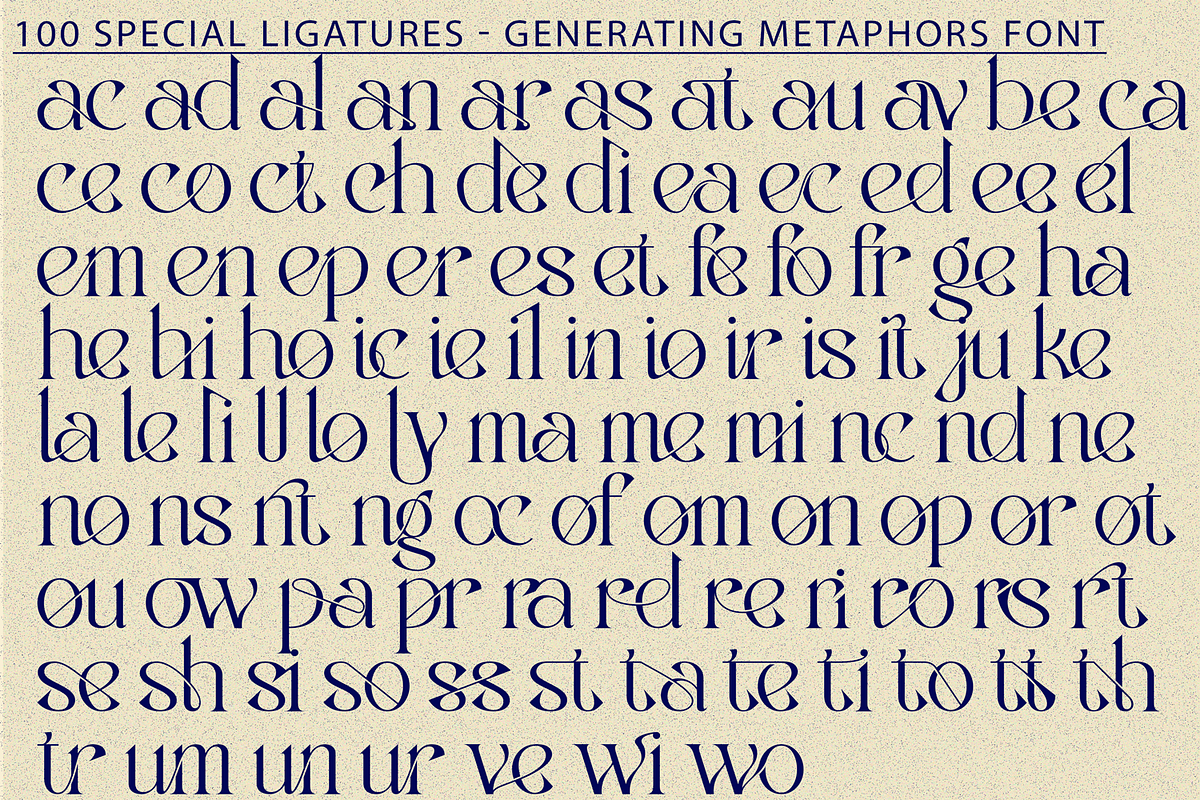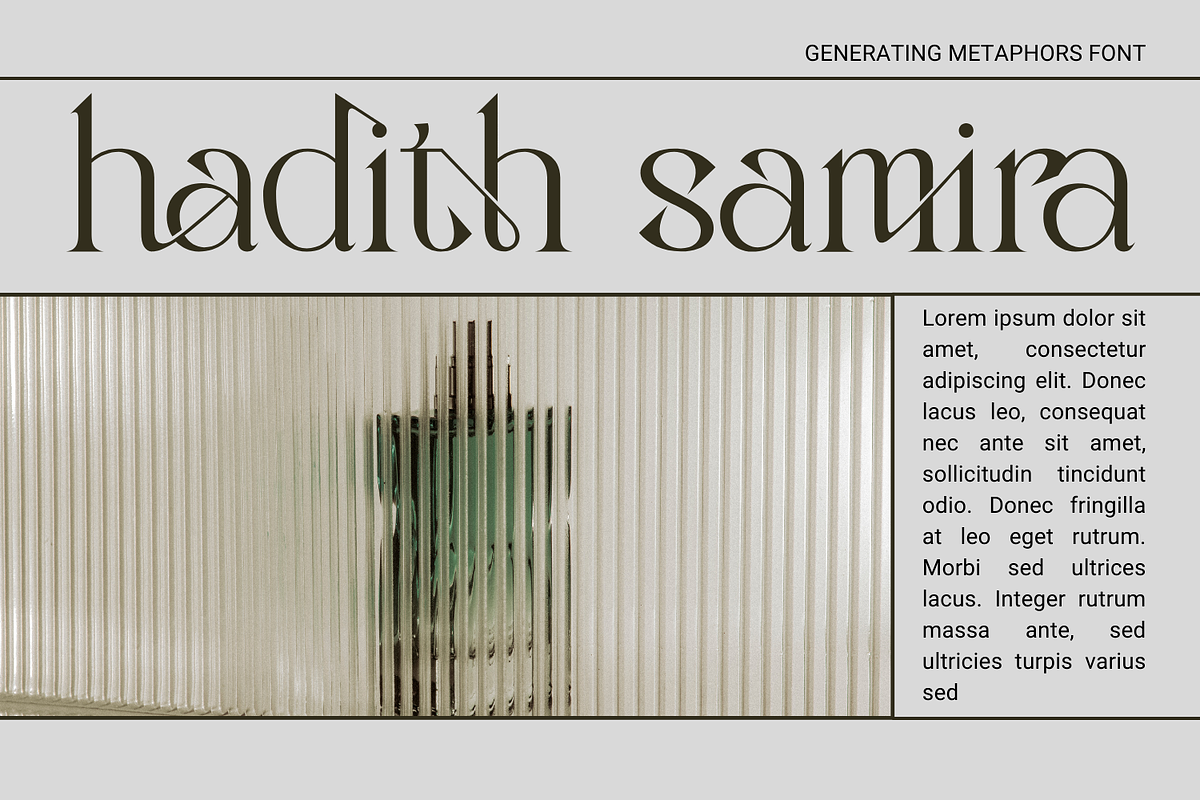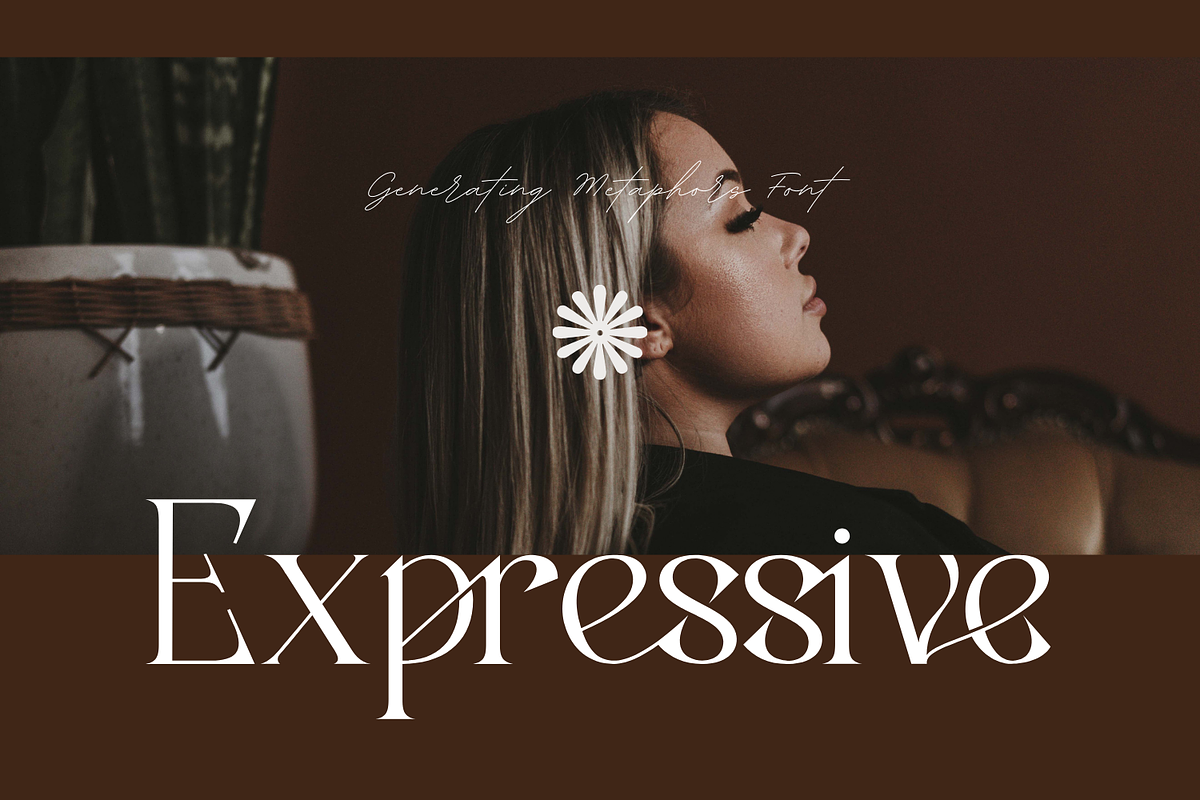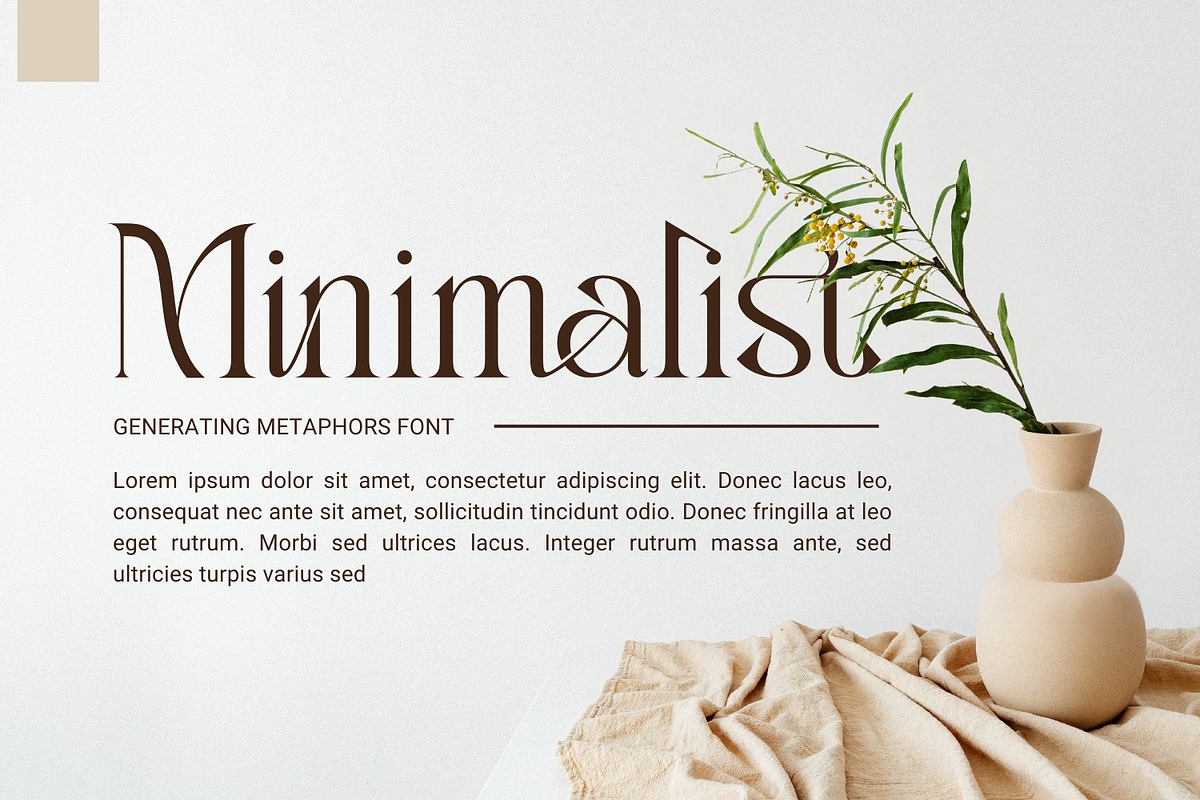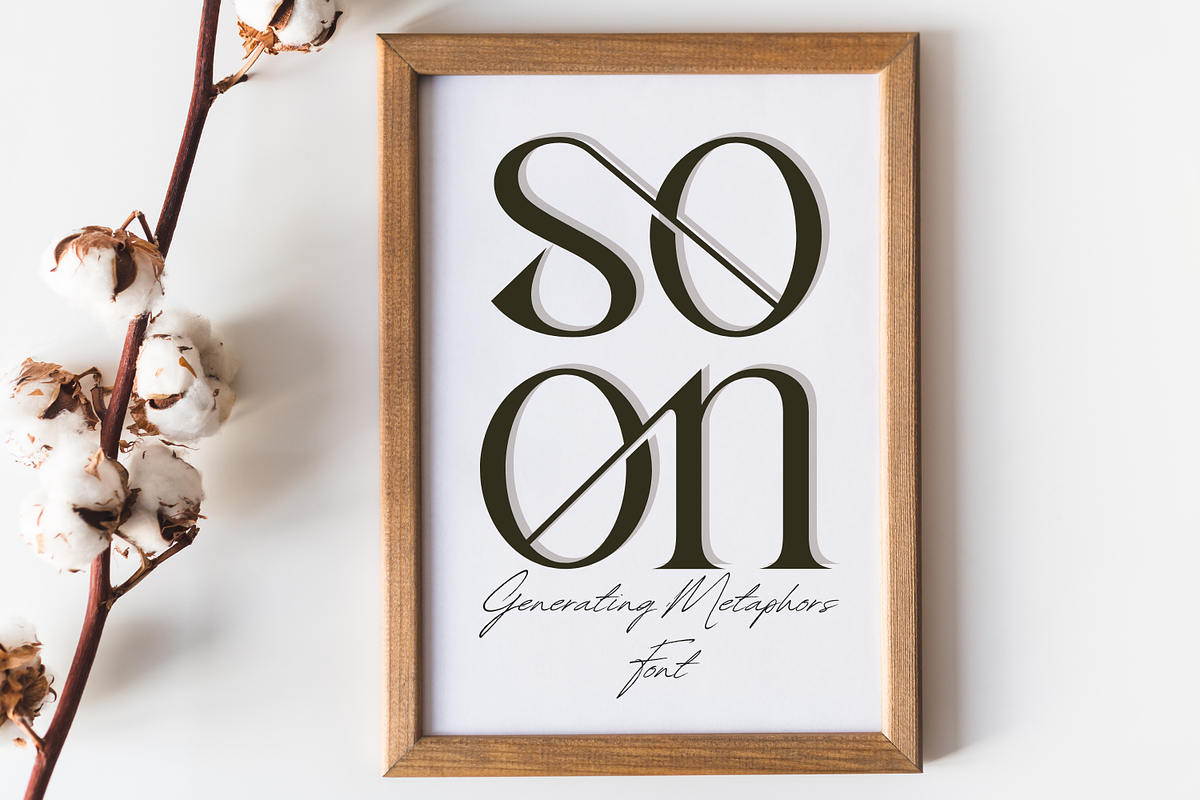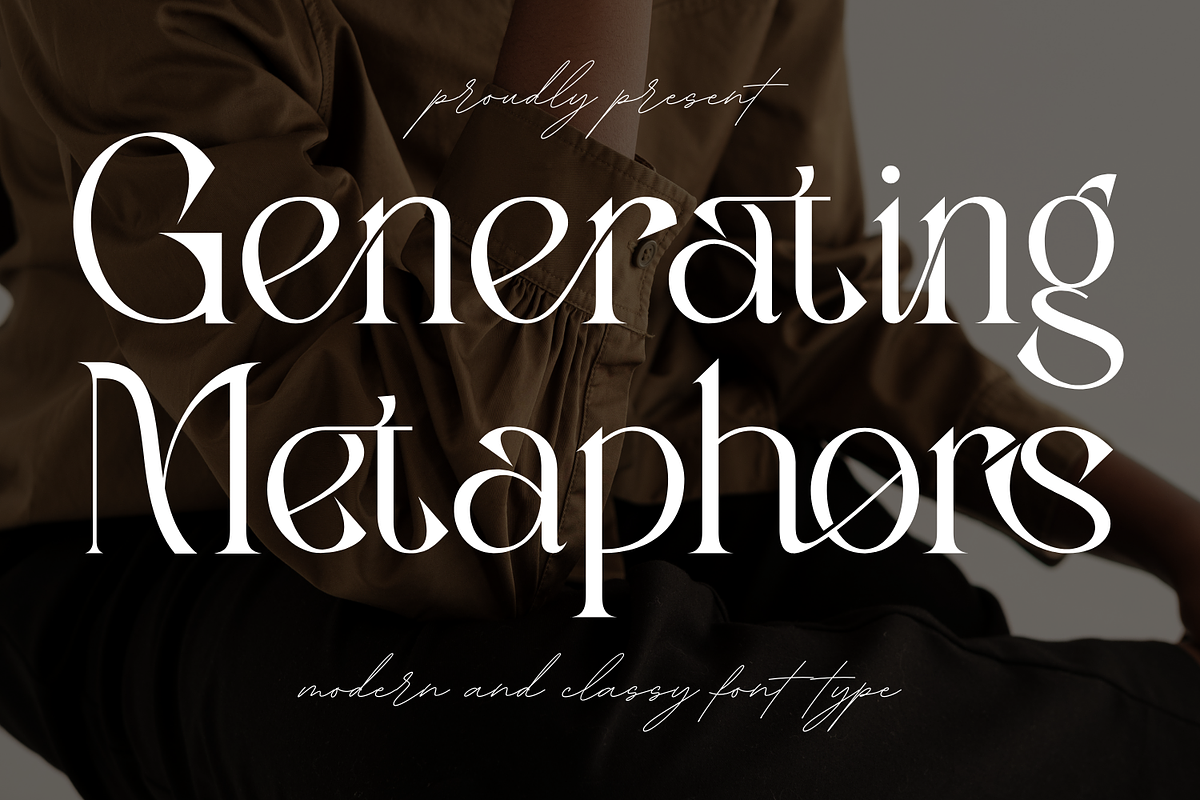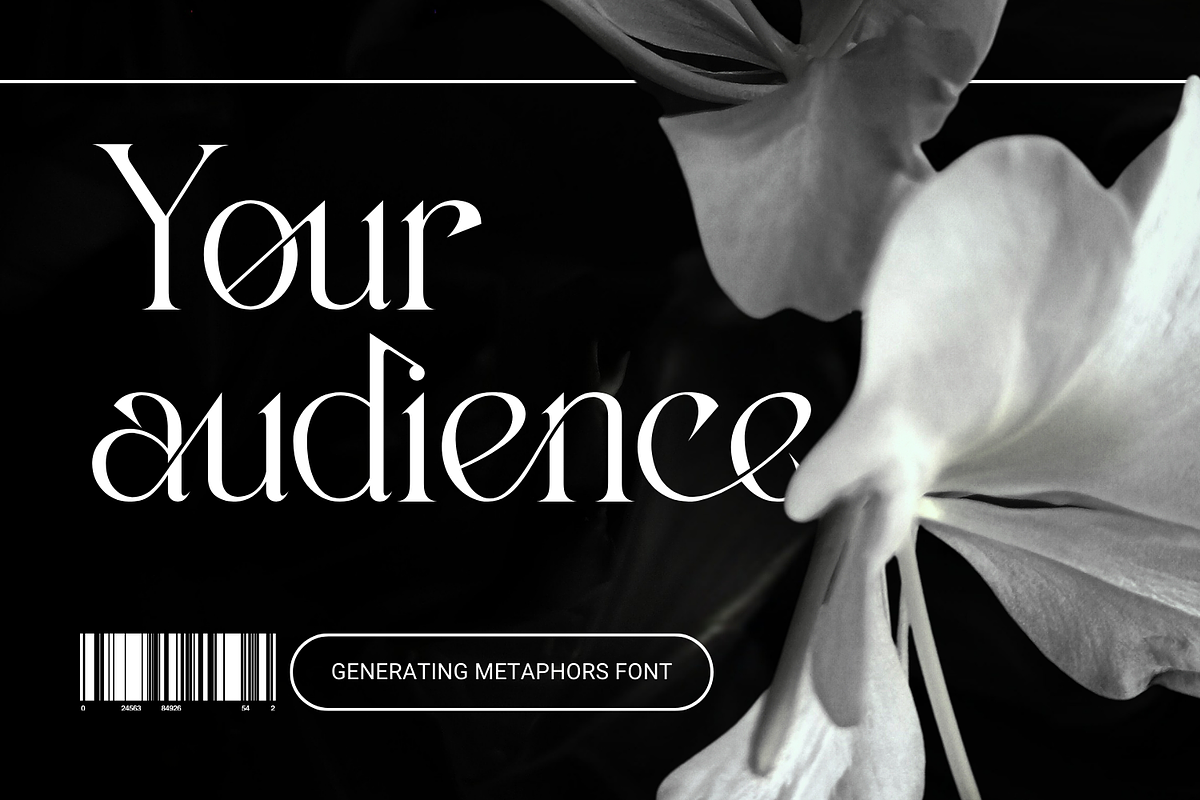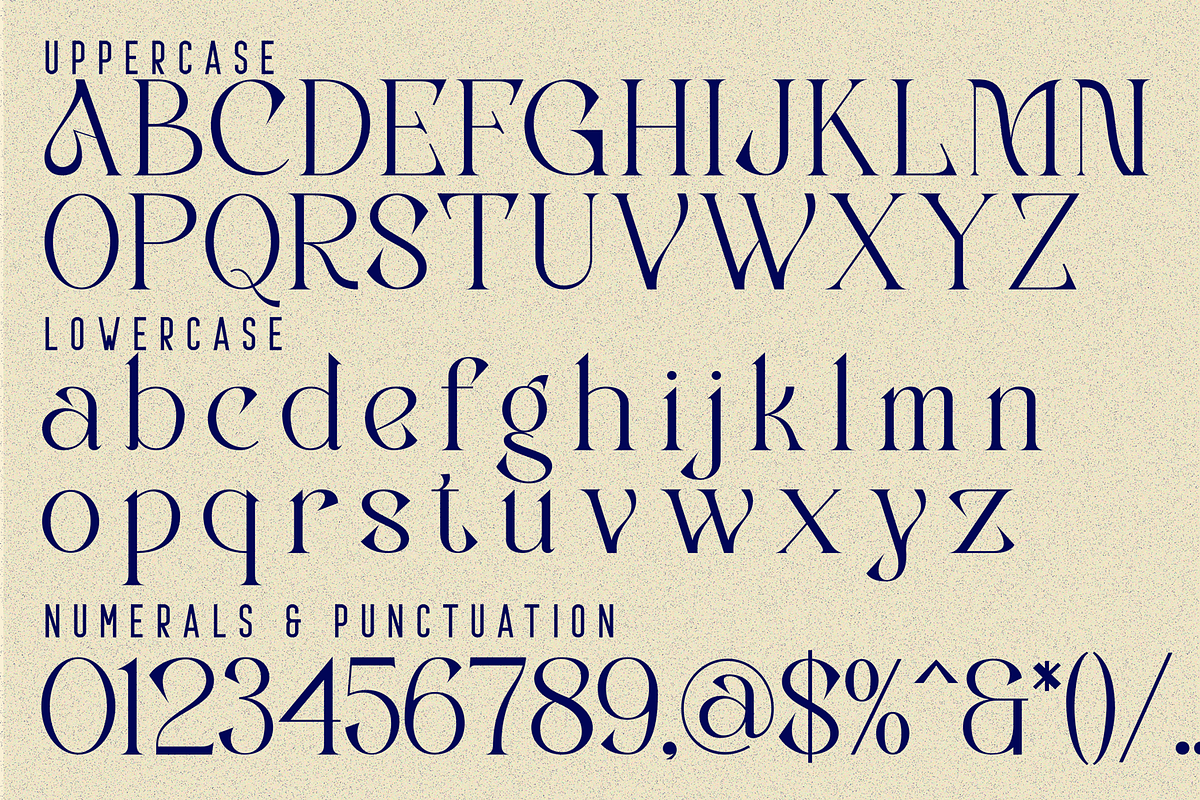
Generating Metaphors - Elegant Serif
Generating Metaphors - Elegant Serif Font – Elegant Modern Serif Font, an elegant modern serif font crafted with refined details and expressive character. Featuring high-contrast strokes, delicate serifs, and gracefully curved letterforms, this typeface brings a perfect balance between classic sophistication and contemporary design. The font showcases smooth transitions, stylish terminals, and carefully designed ligatures that add a subtle sense of movement and luxury to every word. Its graceful proportions and polished structure make Generating Metaphors ideal for editorial layouts, fashion branding, beauty products, premium packaging, and artistic headlines.
🔤Features:
- Uppercase & Lowercase Letters
- Around 100 Special Ligatures & Alternates
- Accented Characters for multilingual support
🔤About 100 ligatures combined with Stylistic Alternates Font:
ac ad al an ar as at au av be ca ce ch co ct de di ea ec ed ee el em en ep er es et fe fo fr ge ha he hi ho ie ic il in io ir is it ju ke la le li ll lo ly ma me mi nc nd ne ng no nt ns oc of om on oo op or ot ou ow pa pr ra rd re ri ro rs rt se sh si so ss st ta te th ti to tr tt um un ur ve wi wo